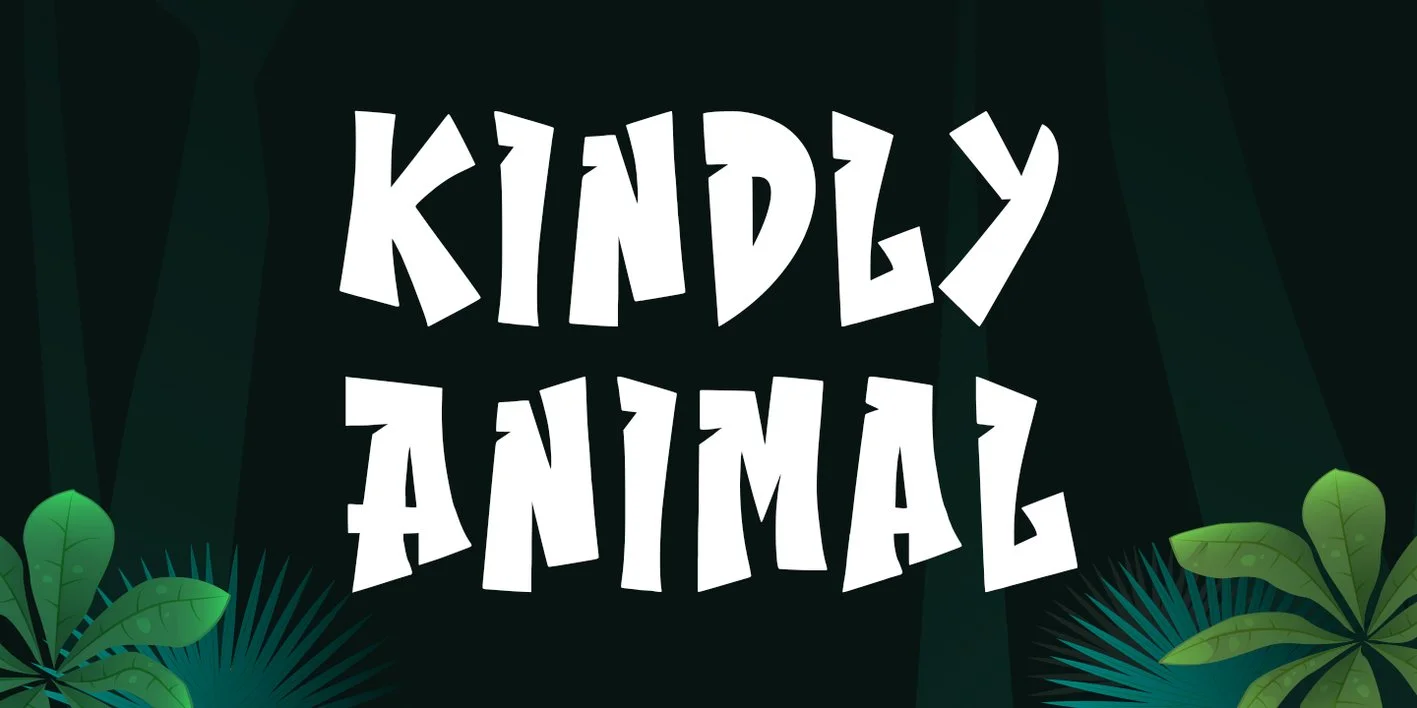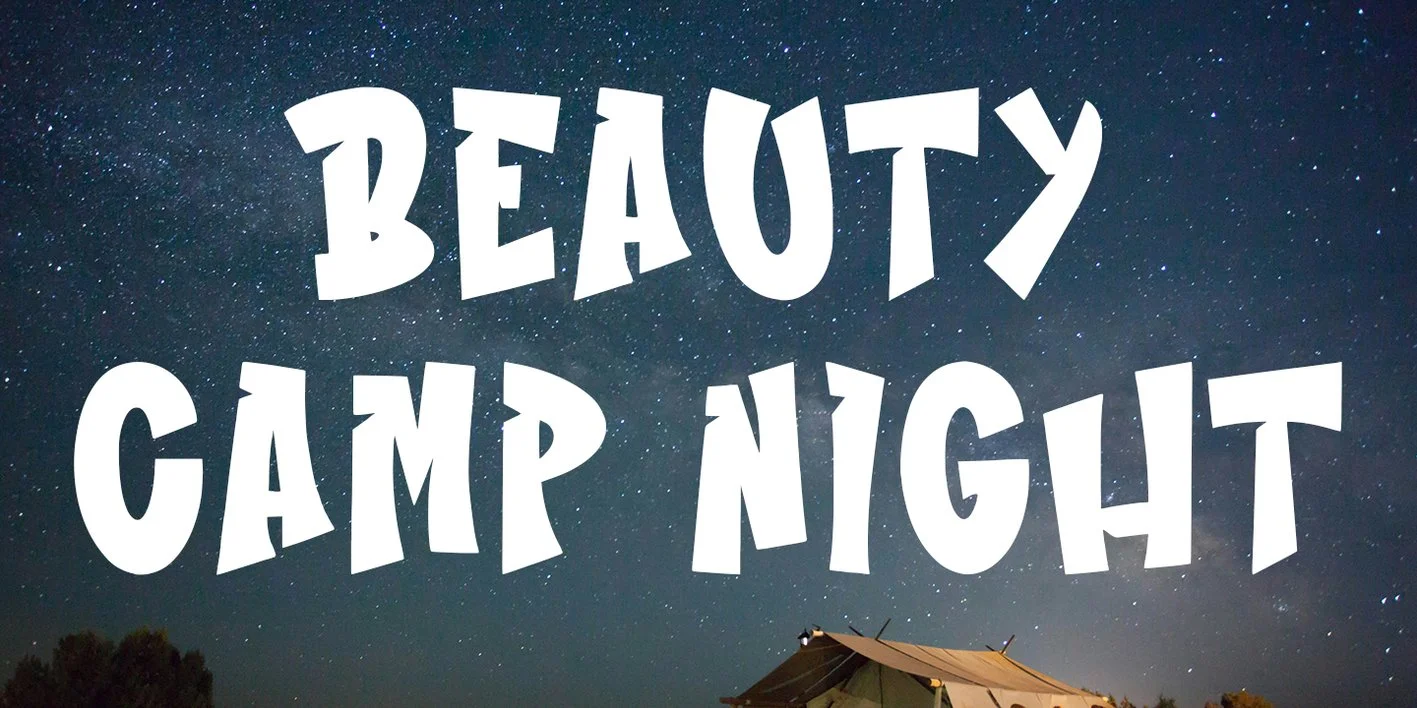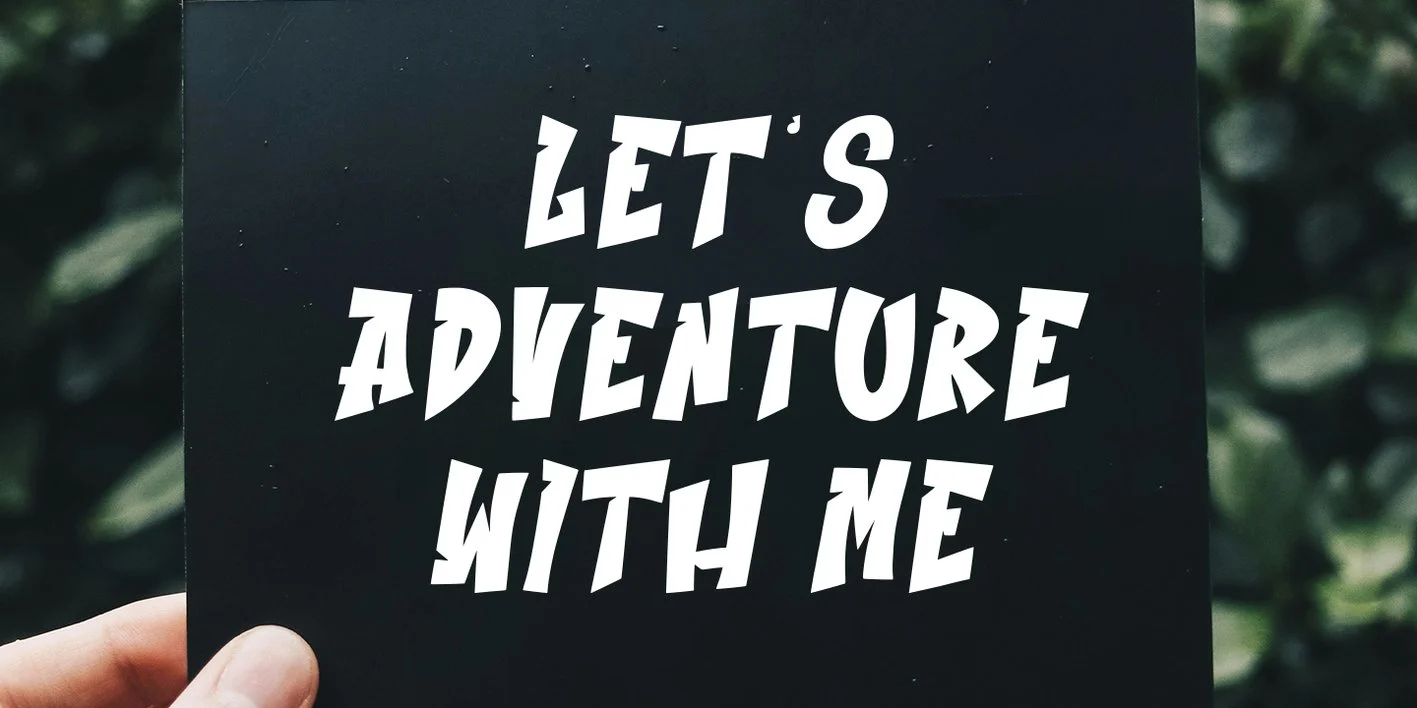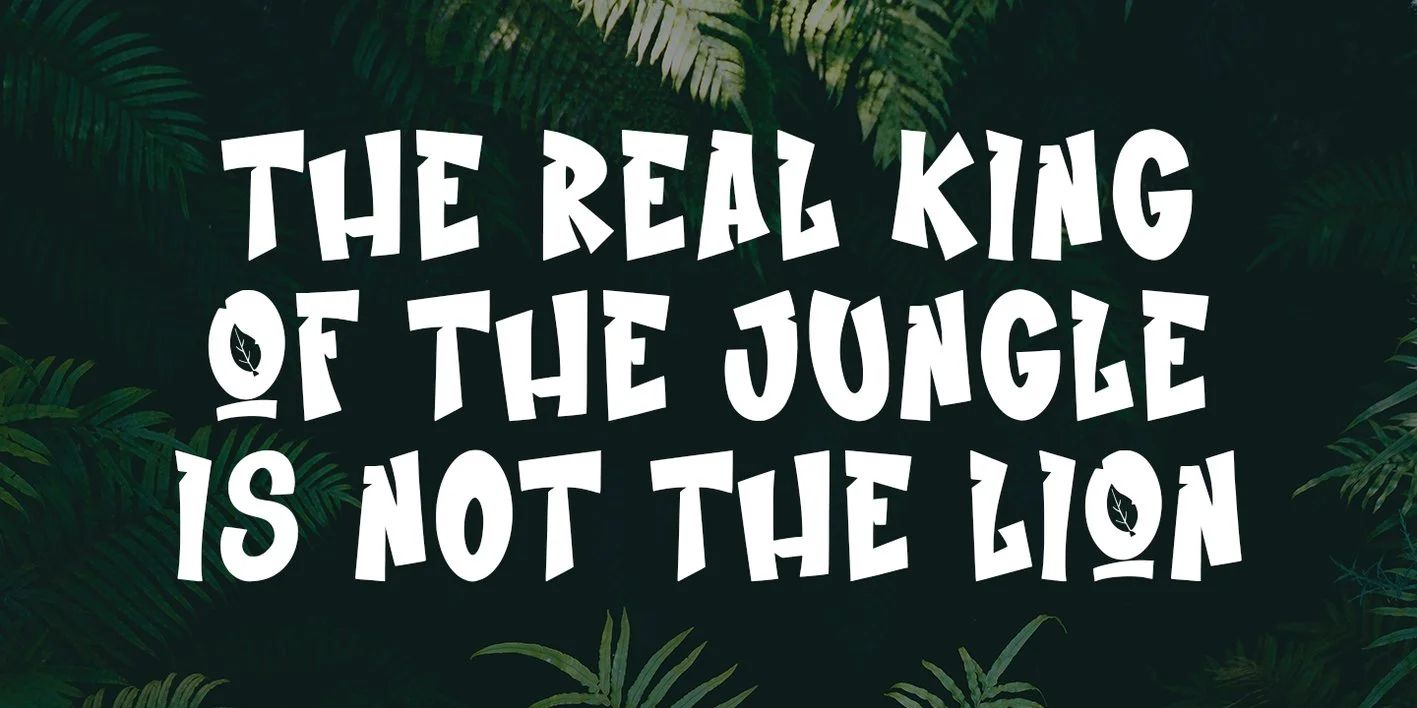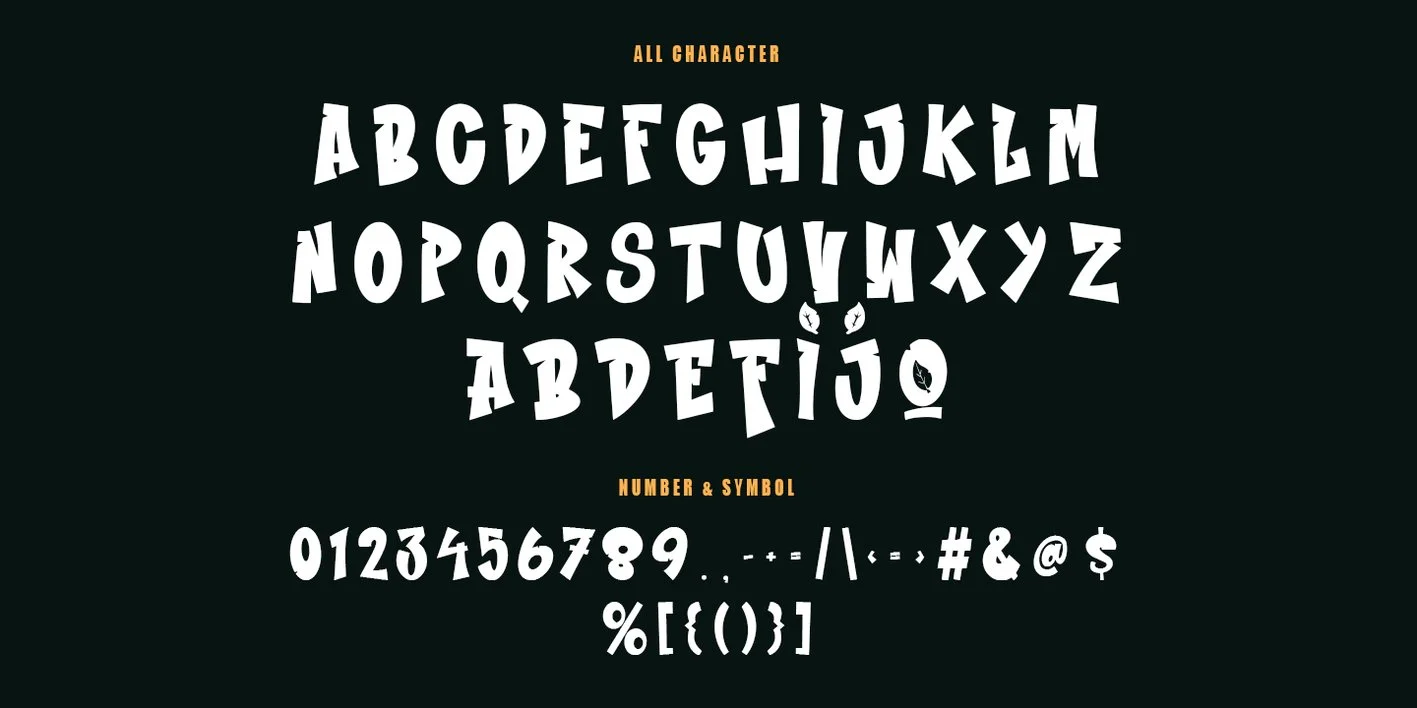
MC Jungle Fresh Font
When a design brief calls for both distinctive character without sacrificing readability and immediate visual impact, type choices matter — MC Jungle Fresh answers that brief. The typeface brings a versatile sensibility to a broad range of creative disciplines, with visual harmony and precise spacing that holds up whether the work is print-first or screen-first.
In practice, MC Jungle Fresh proves particularly effective for logo design, brand identity systems, annual reports, product labels, environmental graphics. Designers reaching for it find that the type decisions feel resolved rather than laboured — a useful quality when client timelines are tight.
Spacing and kerning pairs have been individually reviewed for the most common letter combinations in English and major European languages. The result is even type colour across continuous text, with no awkward gaps or collisions between adjacent characters.
The range of applications extends to signage systems, web design, advertising campaigns, editorial layouts. That breadth is deliberate: the proportions and spacing were stress-tested across a wide range of mock briefs before the typeface was finalised.
At smaller sizes the design retains its character without becoming cluttered. This resilience across scales makes MC Jungle Fresh equally suitable for a business card and a billboard — a useful property when assets must scale across a campaign.
Independent studios handling packaging and editorial work find MC Jungle Fresh a reliable choice for projects that demand both personality and restraint. The design avoids the self-conscious quirkiness that dates quickly, settling instead for considered distinctiveness that holds up over time.